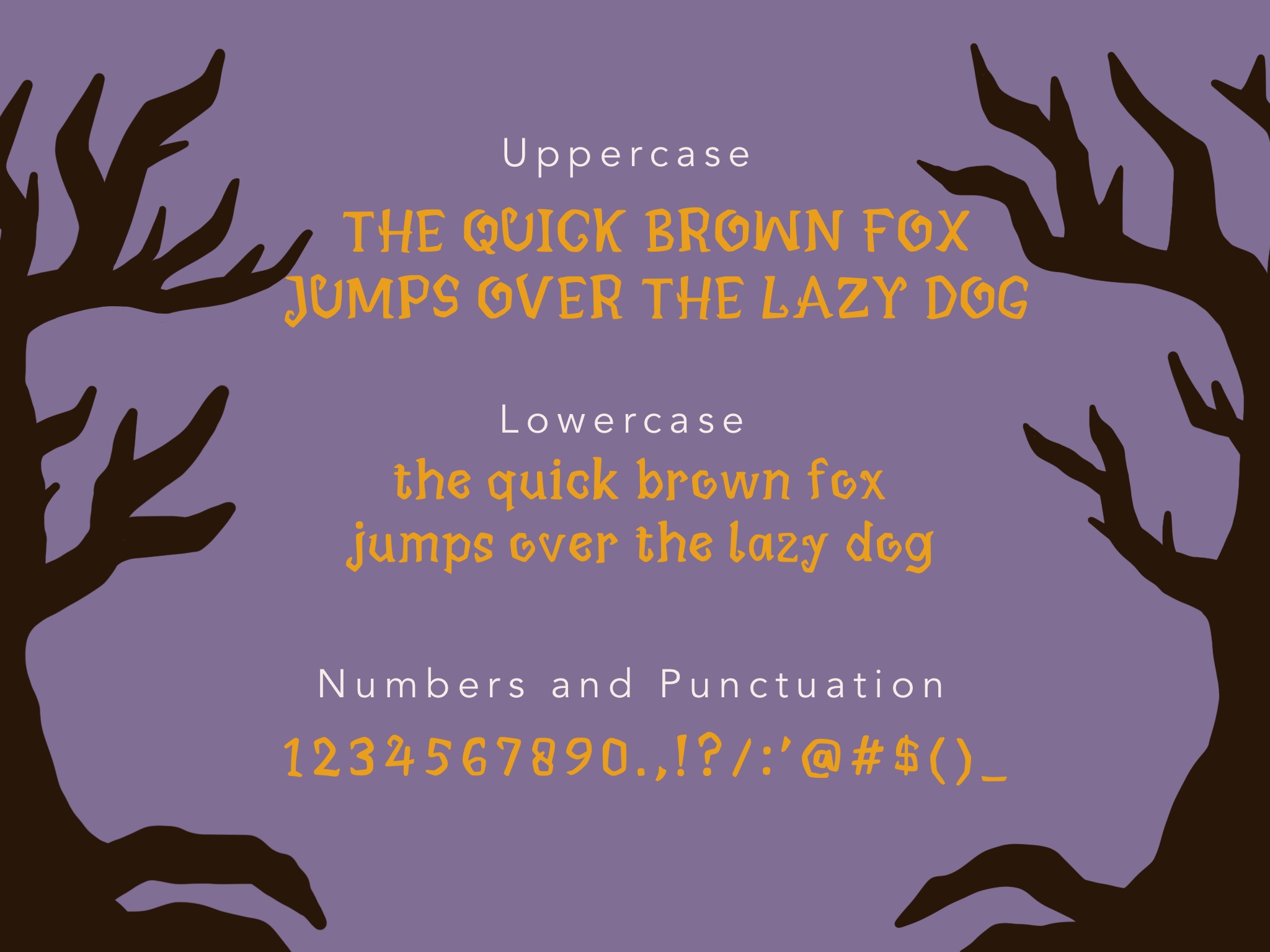
Spooky Witchy Font
Spooky Witchy Display Font
This is a cute and incredibly unique display font. Masterfully designed to become a true favorite, this font has the potential to bring each of your creative ideas to the highest level!